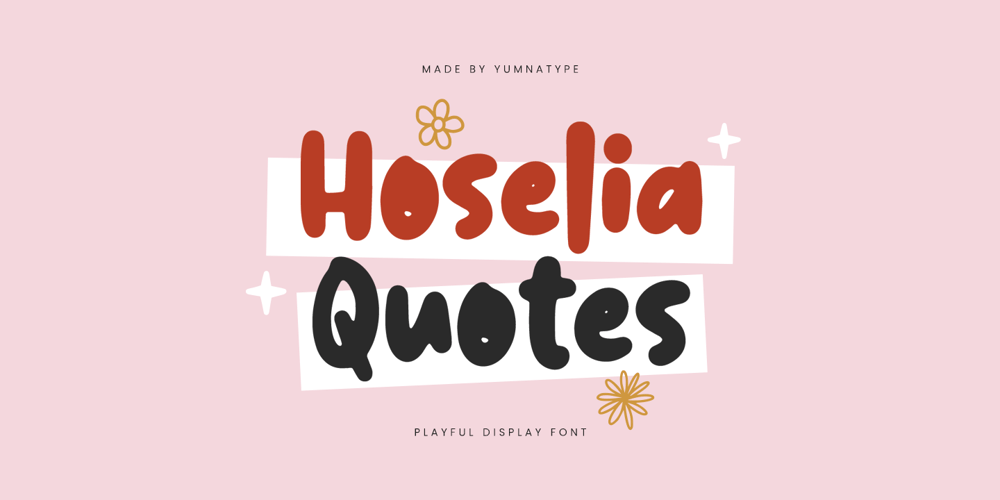
Hoselia Quotes Font Family was designed by Donis Miftahudin and published by Yumna Type. Hoselia Quotes contains 1 styles and family package options. Hoselia Quotes is a delightful display font that infuses your text with whimsy and charm. The playful style of Hoselia Quotes brings a sense of fun and lightheartedness to your text Each letter is designed with rounded shapes, exuding a soft and friendly appearance that invites viewers to engage with your message.With its fairly thick weight and low contrast, Hoselia Quotes maintains a bold presence. For the best legibility you can use it in the bigger sizes text. As a bonus, this font gives hand drawn illustrations. In addition, enjoy the features here.Features: Ligatures Multilingual Supports PUA Encoded Numerals and Punctuations Hoselia Quotes fits in headlines, logos, posters, flyers, branding materials, greeting cards, print media, editorial layouts, and many more designs. Find out more ways to use this font by taking a look at the font preview.Thanks for purchasing our fonts. Hopefully, you have a great time using our font. Feel free to contact us anytime for further information or when you have trouble with the font. Thanks a lot and happy designing.